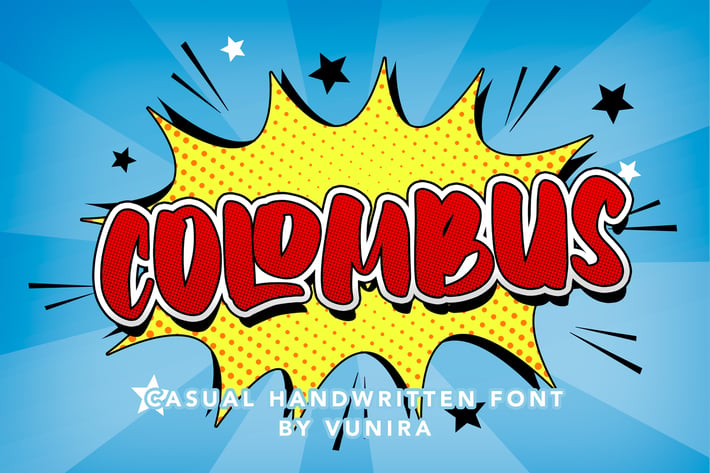
Colombus | Casual Handwritten Font
Colombus | Casual Handwritten Font with a calligraphy style, So beautiful on invitation like greeting cards, branding materials, business cards, quotes, posters, and more!